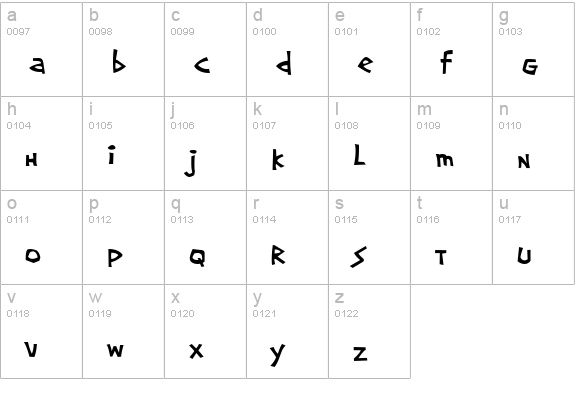
Screwball Font Details
Introducing Screwball, a whimsical and playful font that will add a touch of fun to any project. This font is a perfect choice for those looking to inject a sense of lightheartedness and quirkiness into their designs. With its unique and irregular letterforms, Screwball stands out from the crowd and brings a sense of delight to every word. Screwball is not only aesthetically pleasing, but it also offers convenience. This font is available for free download at FontsMarket.com, making it easily accessible to designers and creatives alike. Say goodbye to expensive font purchases and hello to creative freedom! Whether you're designing a children's book cover, creating eye-catching social media graphics, or adding a playful touch to your website, Screwball is the perfect companion. Its bold and energetic appearance will instantly captivate viewers, leaving a lasting impression. With Screwball, you have the freedom to experiment and explore. Let your imagination run wild as you combine different letterforms and create unique typographic compositions. This font invites you to embrace your inner child and think outside the box. Screwball is versatile and adaptable, making it suitable for a wide range of design projects. Its legibility ensures that your message is conveyed effortlessly, while its distinctive style adds a touch of personality. Whether you're aiming for a retro-inspired look or a contemporary feel, Screwball has got you covered. So why wait? Download Screwball for free at FontsMarket.com and unleash your creativity. Get ready to add a dash of playfulness and charm to your designs with this delightful font. Let Screwball be the secret ingredient that takes your projects from ordinary to extraordinary.